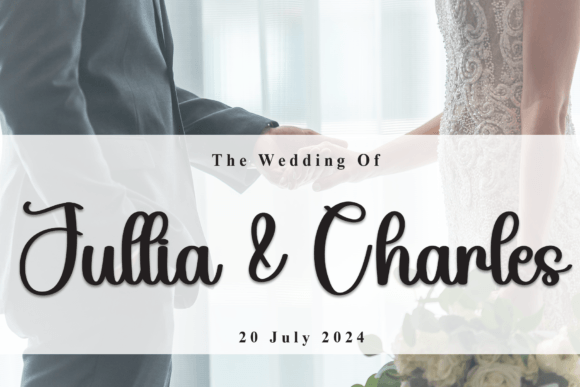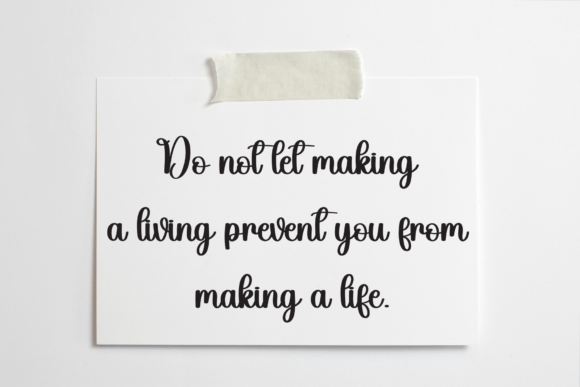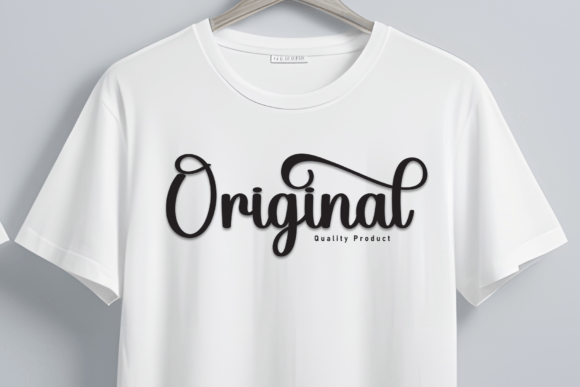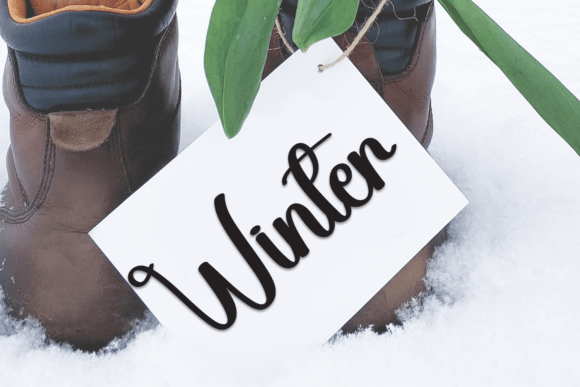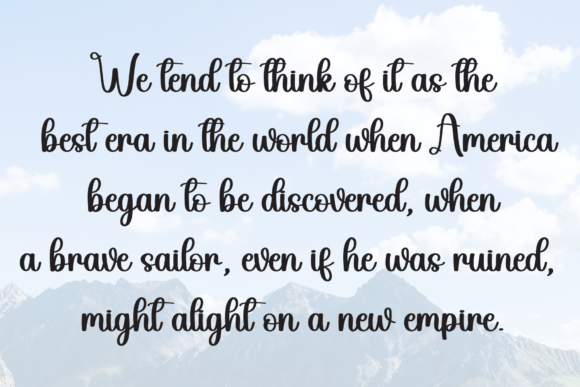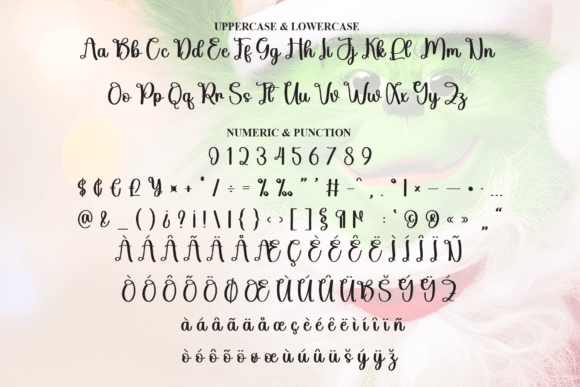
Introducing Grinch Font: The Perfect Casual Handwritten Style for Your Designs
Are you tired of using the same old fonts for your personal projects, social media, and invitations? Look no further than Grinch Font, a casual handwritten font that captures a relaxed and friendly vibe with its natural, flowing strokes. In this article, we’ll dive into the world of Grinch Font and explore its unique features, uses, and benefits for designers and crafters.
What is Grinch Font?
Grinch Font is a beautifully crafted handwritten font that exudes a sense of warmth and authenticity. Its natural, flowing strokes give it a relaxed and friendly feel, making it perfect for designs that require a personal touch. Whether you’re working on a personal project, creating social media content, or designing invitations, Grinch Font is the ideal choice.
Key Features of Grinch Font
- Natural and Flowing Strokes: Grinch Font features natural, flowing strokes that give it a relaxed and friendly vibe.
- Casual and Handwritten: The font’s casual and handwritten style makes it perfect for personal projects, social media, and invitations.
- Effortless and Charming: Grinch Font brings an effortless, charming touch to any design, adding warmth and authenticity.
- Easygoing Style: The font’s easygoing style makes it perfect for designs that require a relaxed and friendly tone.
Uses of Grinch Font
Grinch Font is a versatile font that can be used in a variety of design projects, including:
- Personal Projects: Use Grinch Font to add a personal touch to your personal projects, such as photo albums, scrapbooking, and journaling.
- Social Media: Grinch Font is perfect for social media content, including Instagram posts, Facebook updates, and Twitter tweets.
- Invitations: Add a touch of warmth and authenticity to your invitations, including birthday invitations, wedding invitations, and holiday invitations.
- Crafting: Grinch Font is a great choice for crafters, including knitters, crocheters, and paper crafters.
Benefits of Using Grinch Font
There are many benefits to using Grinch Font in your designs, including:
- Unique and Eye-Catching: Grinch Font is a unique and eye-catching font that will set your designs apart from the rest.
- Easy to Read: The font’s natural, flowing strokes make it easy to read, even at small sizes.
- Versatile: Grinch Font is a versatile font that can be used in a variety of design projects.
- Time-Saving: Using Grinch Font can save you time and effort, as it’s easy to use and doesn’t require a lot of design expertise.
Tips for Using Grinch Font
Here are some tips for using Grinch Font in your designs:
- Pair with Other Fonts: Pair Grinch Font with other fonts to create a unique and eye-catching design.
- Use in Combination with Images: Use Grinch Font in combination with images to add a personal touch to your designs.
- Keep it Simple: Keep your design simple and clean to let Grinch Font shine.
Grinch Font is a beautiful and versatile font that’s perfect for designers and crafters looking to add a personal touch to their designs. With its natural, flowing strokes and casual, handwritten style, Grinch Font brings an effortless, charming touch to any design. Whether you’re working on a personal project, creating social media content, or designing invitations, Grinch Font is the ideal choice. So why not give Grinch Font a try and see the difference it can make in your designs?